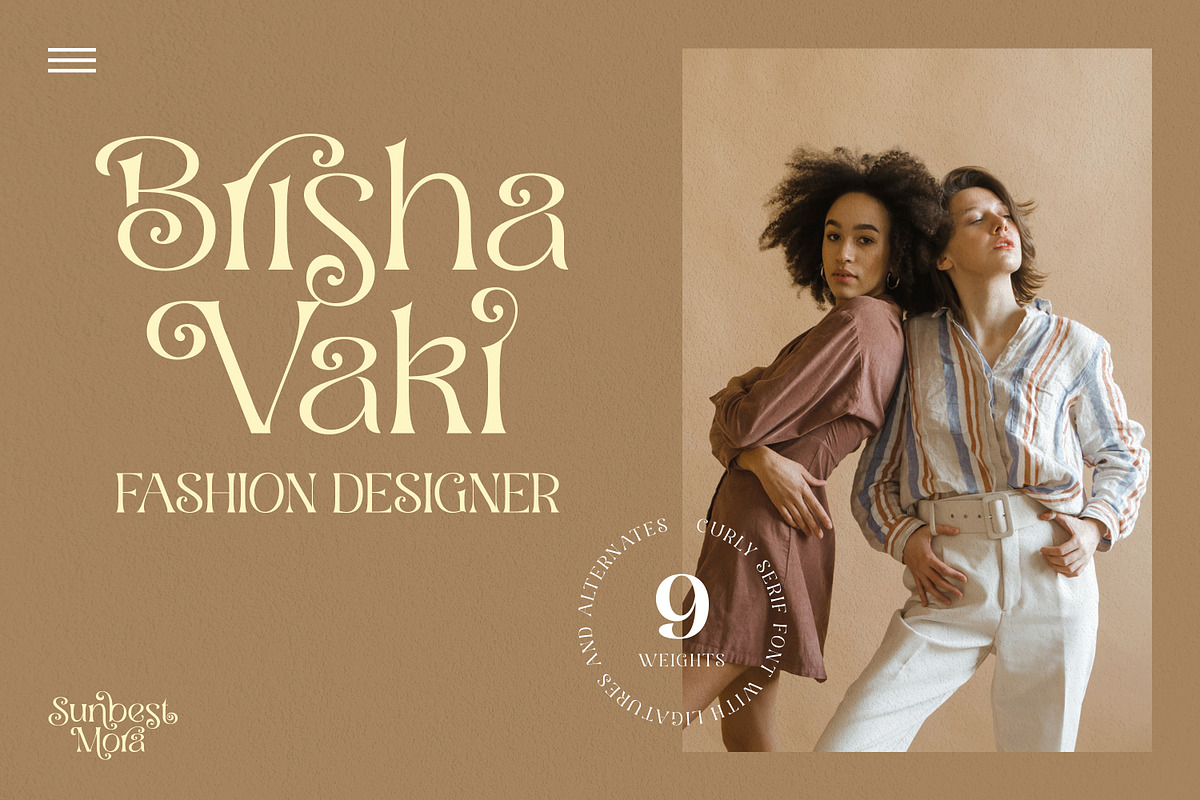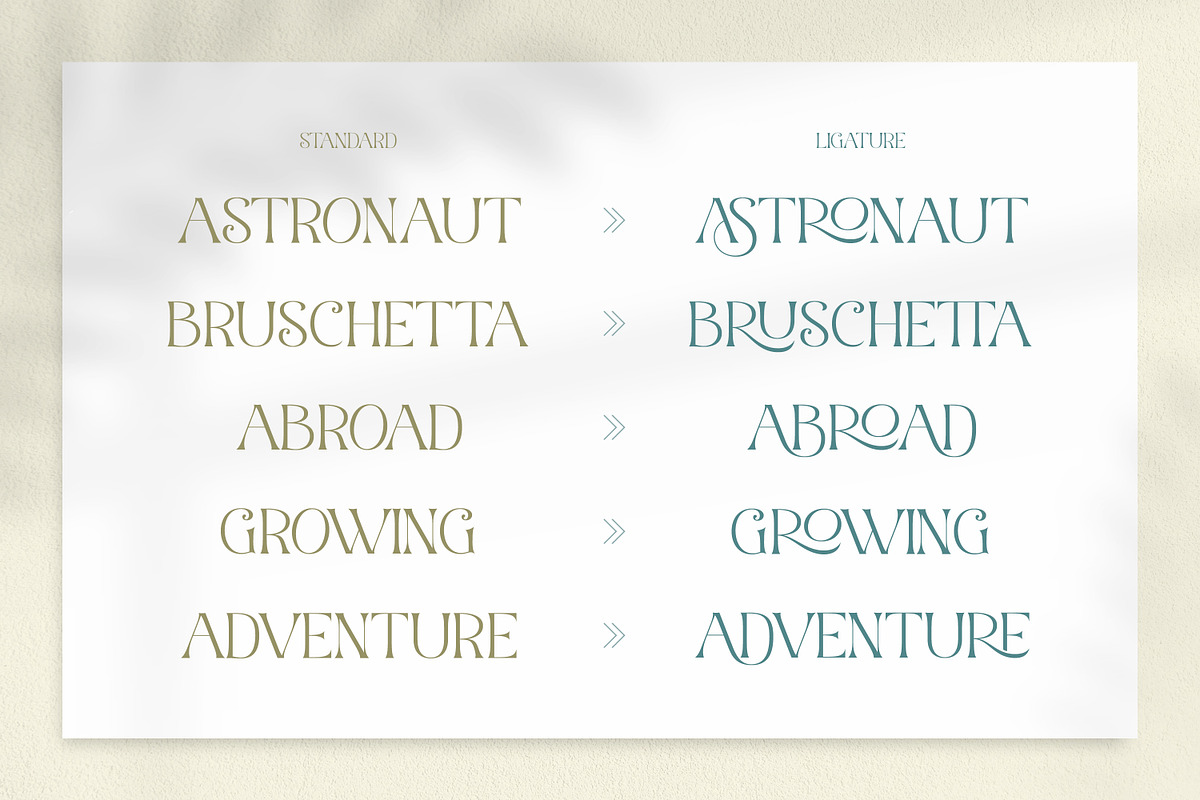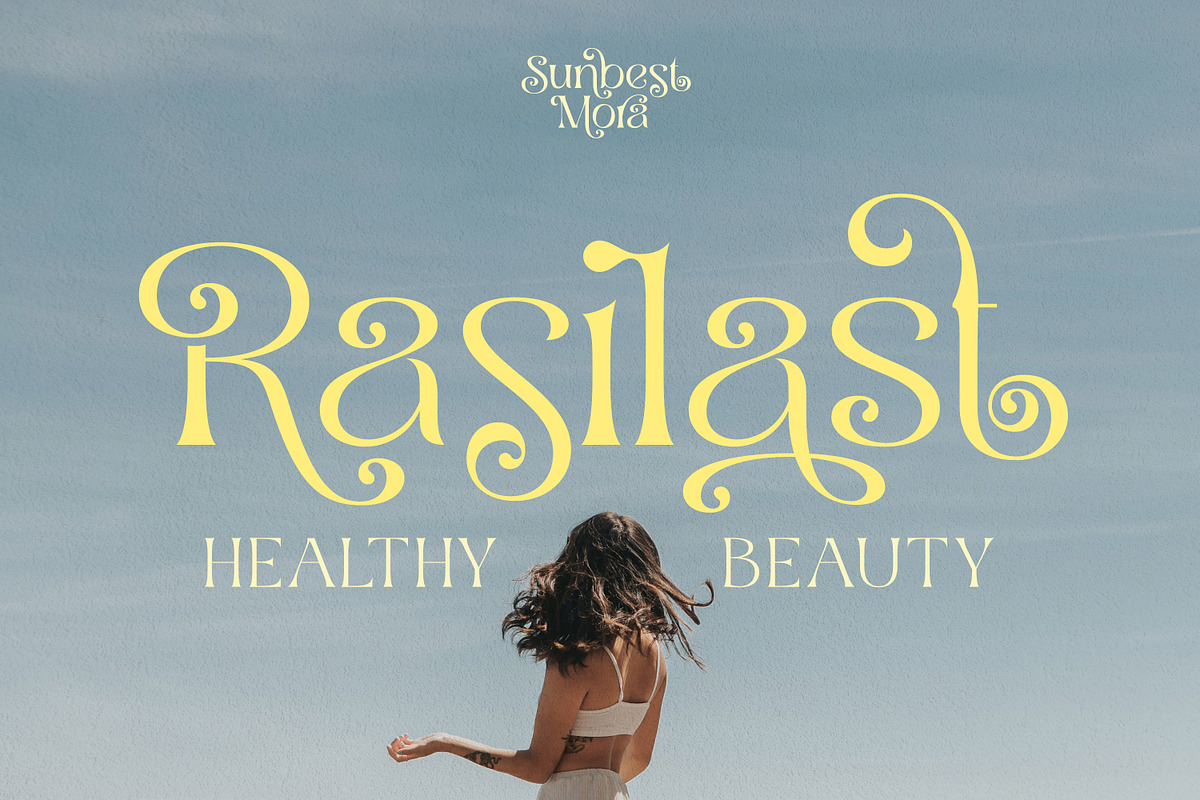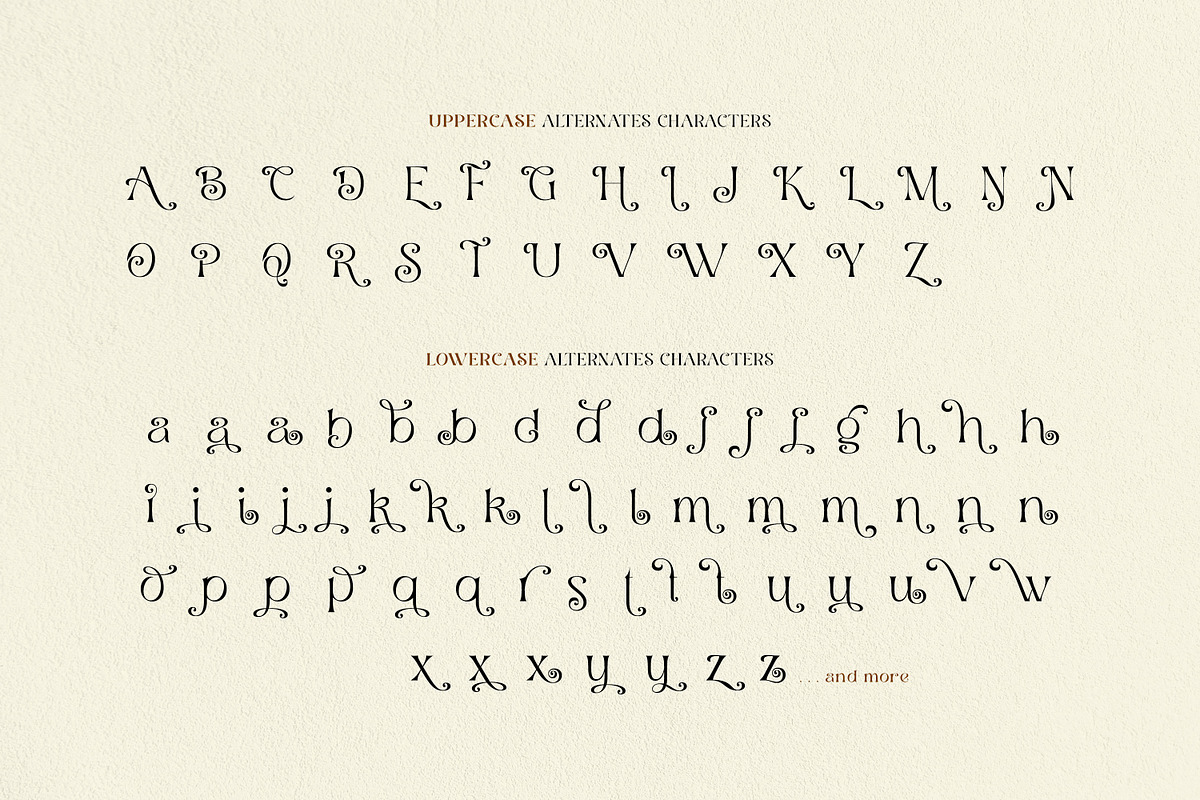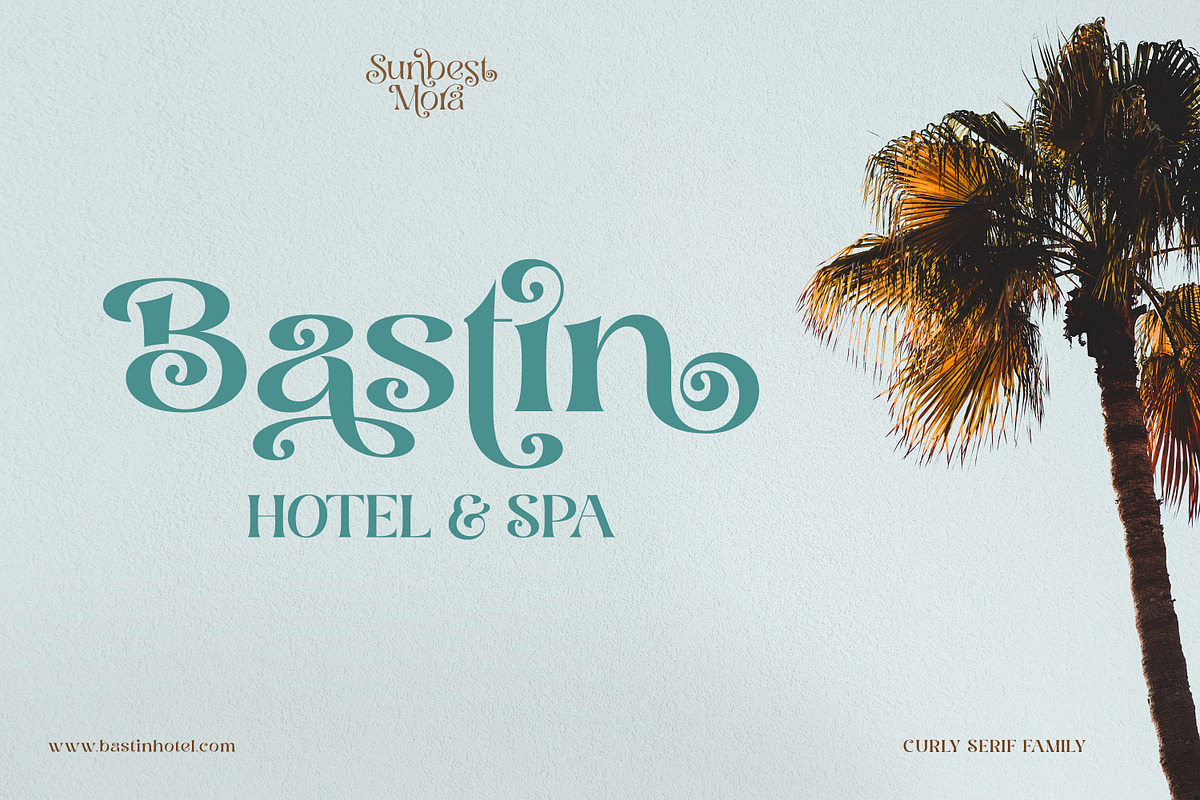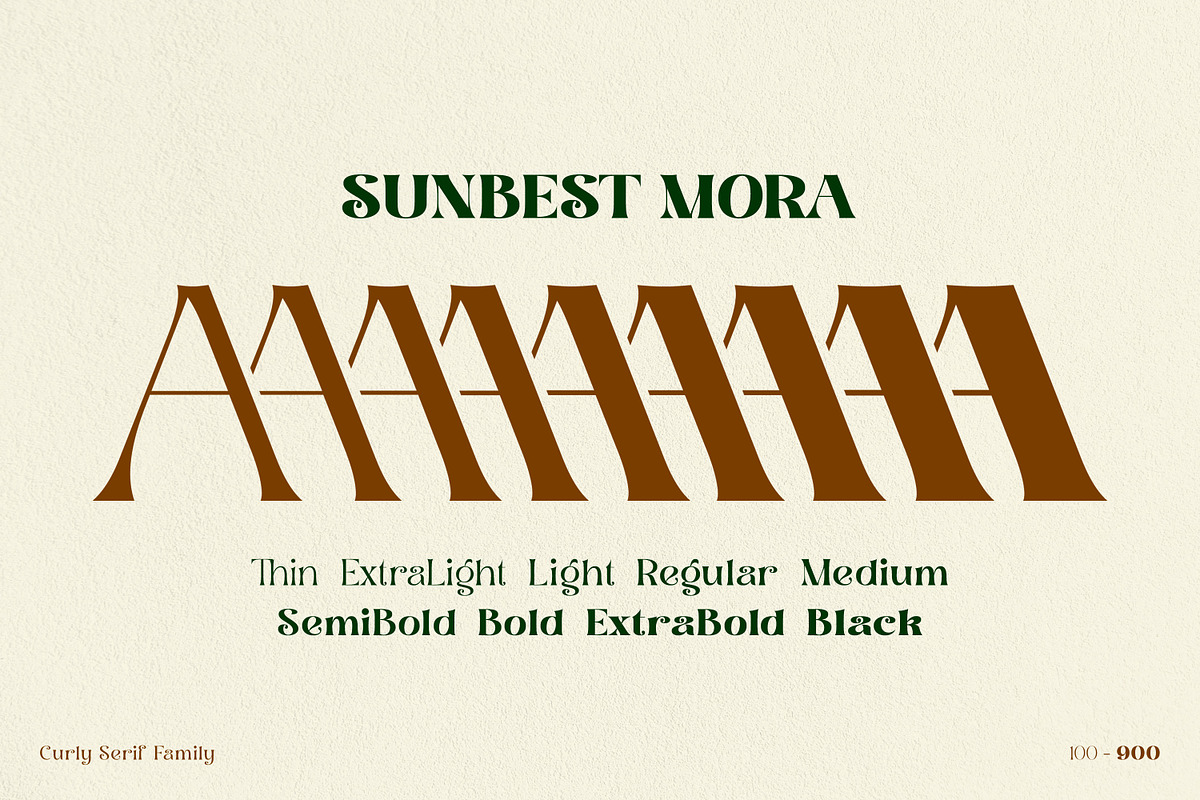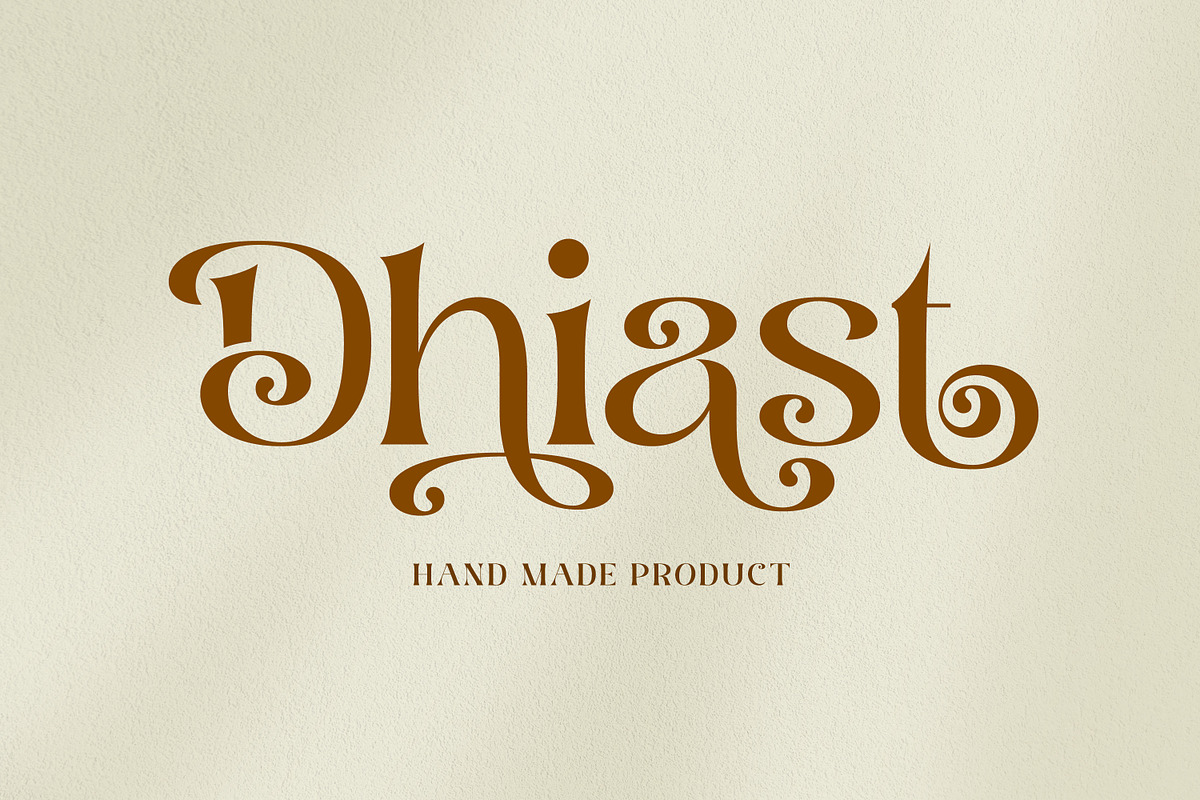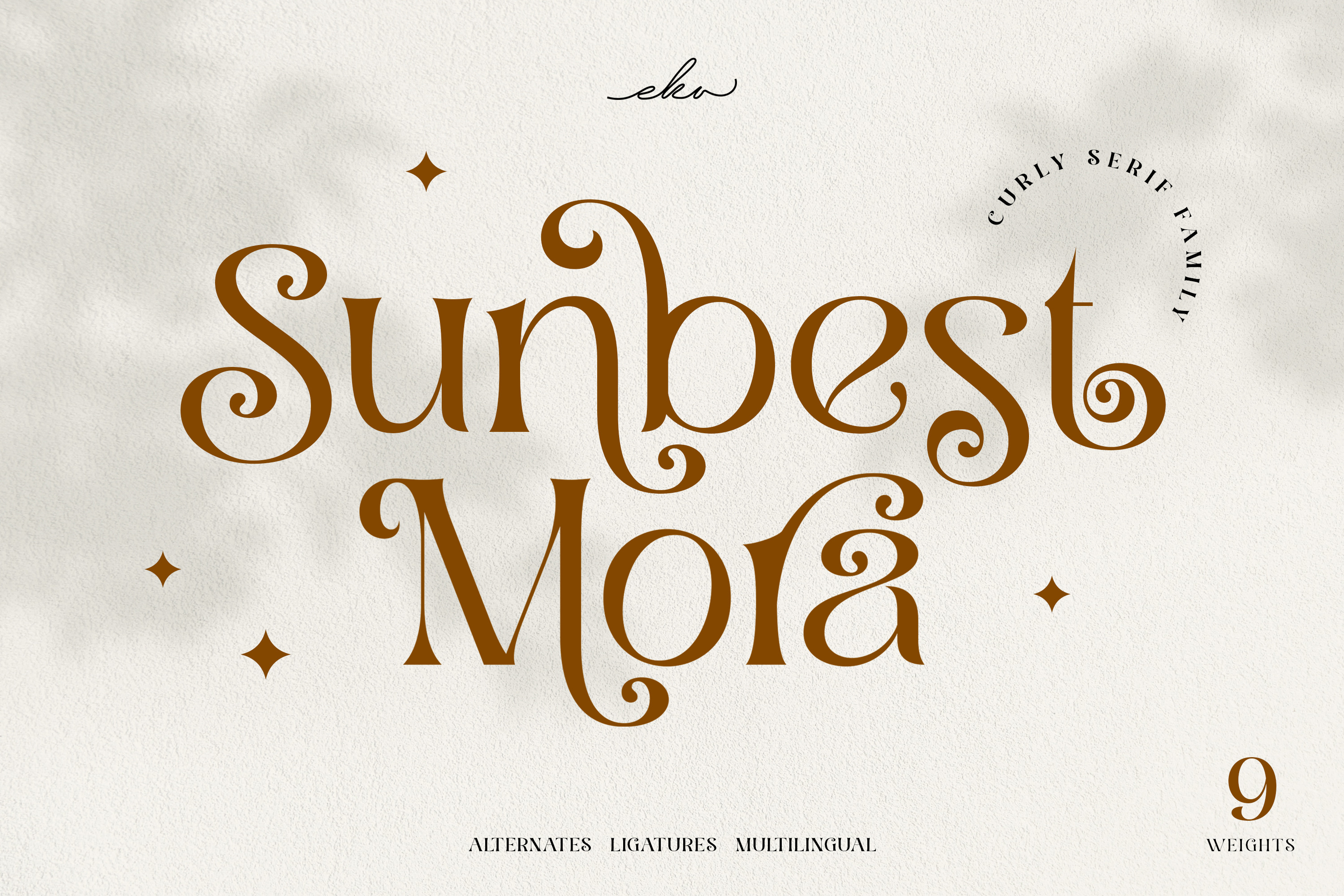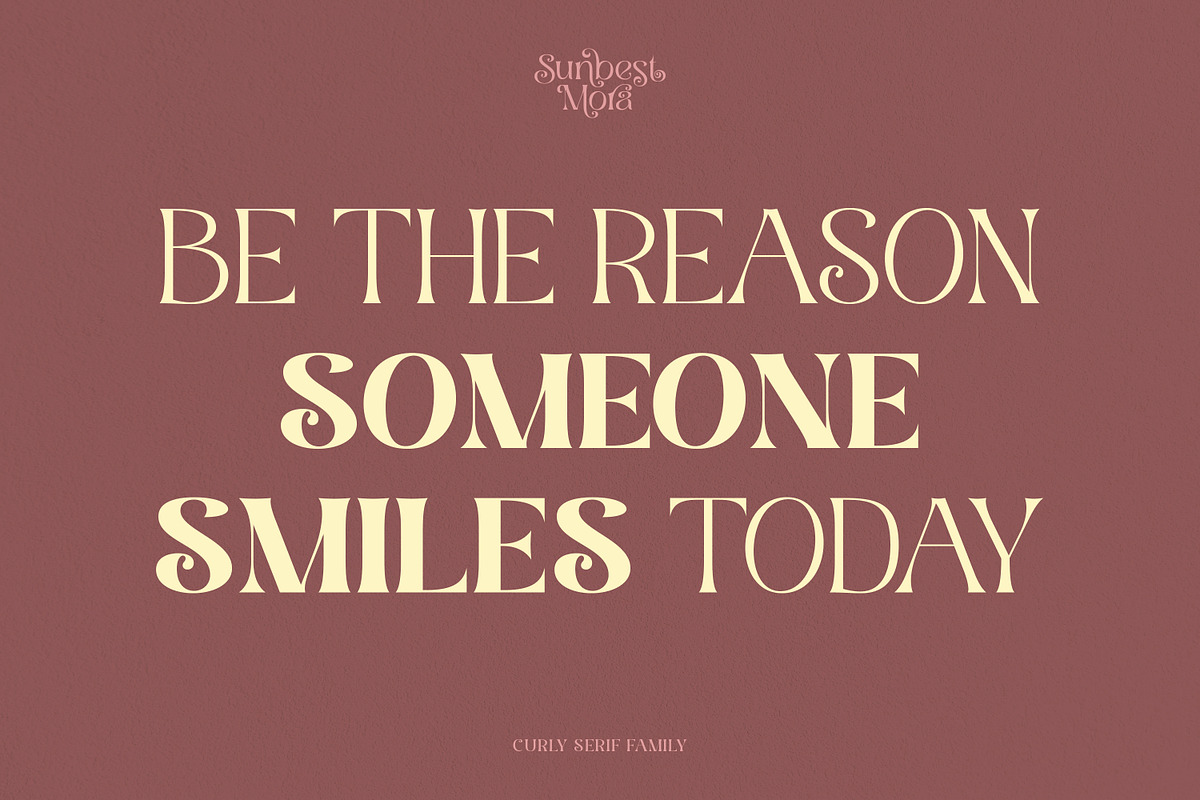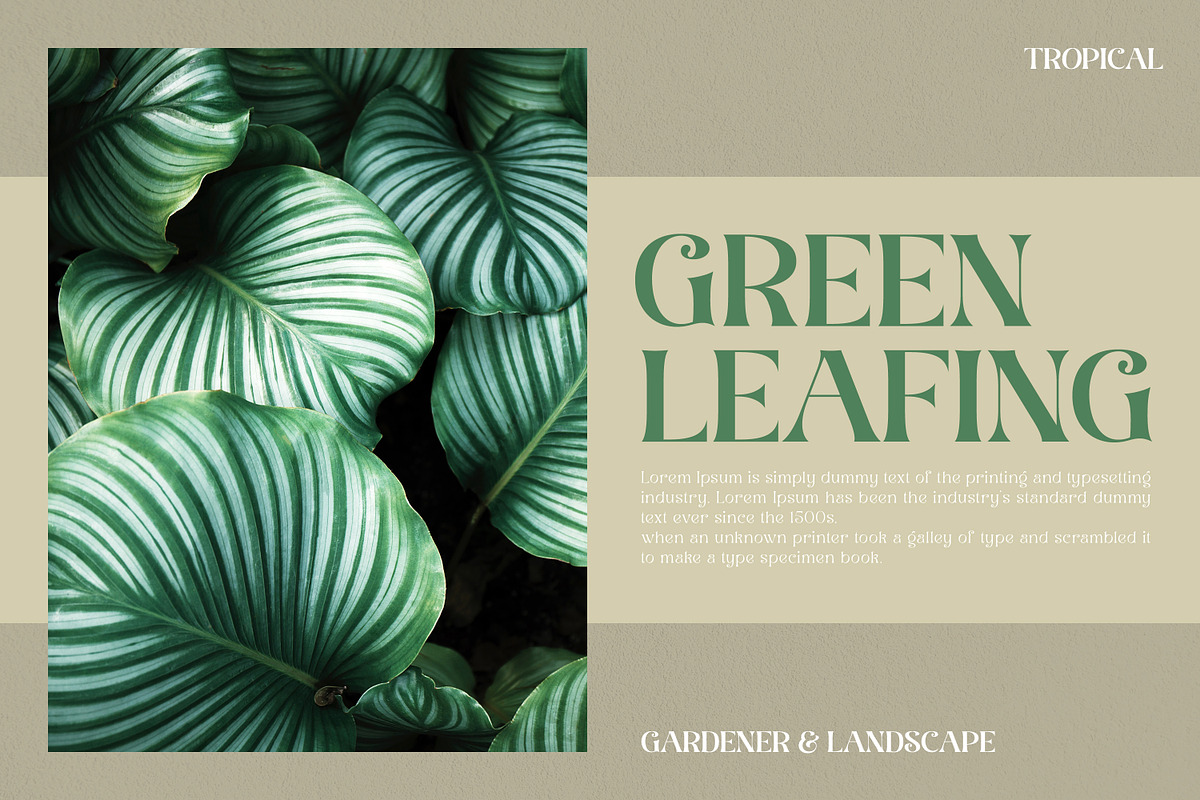
Sunbest Mora - Display Serif Font
Sunbest Mora is a curly designed serif family font that consists of 9 weights from Thin to Black. Sunbest Mora also includes a bunch of alternate characters (PUA Encoded) and ligatures characters to give you a wide range for creating attractive typographic design results for many different projects such as logo, branding, poster, magazines, labels, merchandise, invitation, presentation, advertising, quotes and so much more!
- OpenType support
- Playfull to use (with ligatures and alternates options)